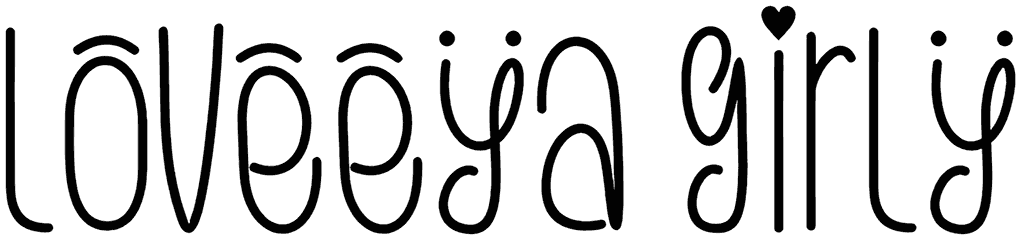
Loveeya Girly Font
Designed byEdy Wiyono
Loveeya Girly is a joyous and beautiful font that combines lowercase and uppercase letters to appropriately represent the essence of the font’s free-flowing shape.